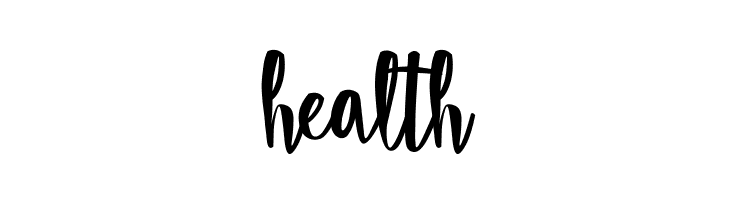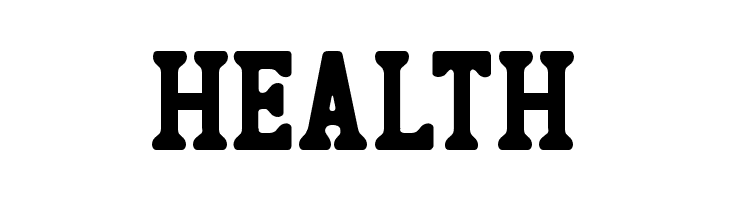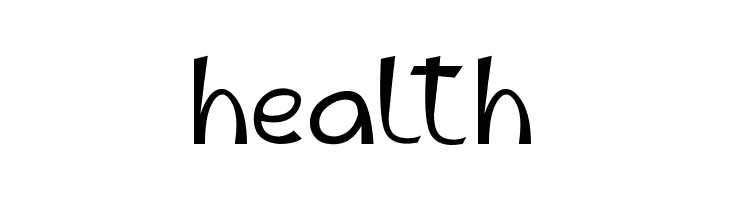
( Jaime Rangel Castro )
A playful, handwritten-style font with smooth, fluid strokes and dynamic movement.
( Jaime Rangel Castro )
A playful, bold font with a mix of handwritten and display styles.
( Jaime Rangel Castro )
A bold, athletic font with a vintage slab serif style.
( Jaime Rangel Castro )
A bold, angular font with sharp, peak-like cut-out details.
( Jaime Rangel Castro )
A playful and whimsical font with bold, hand-drawn characters.
( Jaime Rangel Castro )
A playful, bold font with rounded, whimsical characters.
( Fonts by Jaime Rangel Castro )
A playful, bold font with cartoonish faces on each character.
A whimsical, heart-themed decorative font with a playful, script-like style.
A bold, outlined font with a collegiate style, perfect for impactful designs.
A bold, geometric font with a collegiate, sports-inspired style.